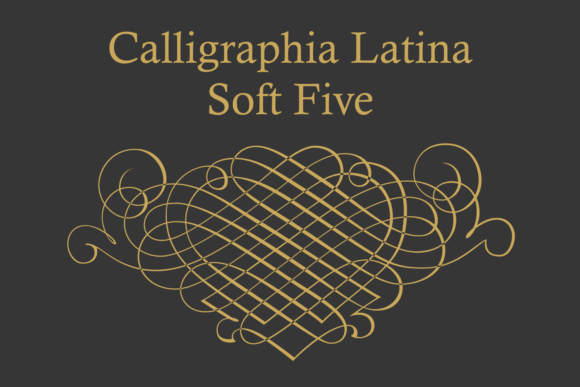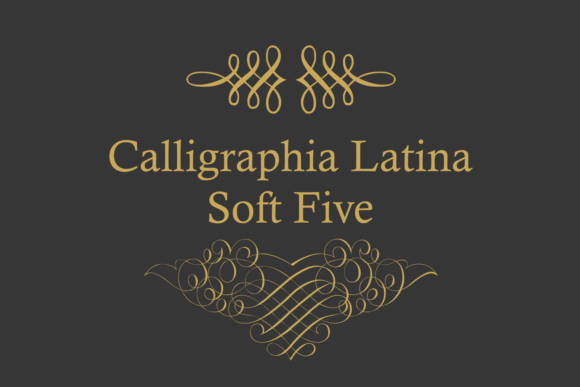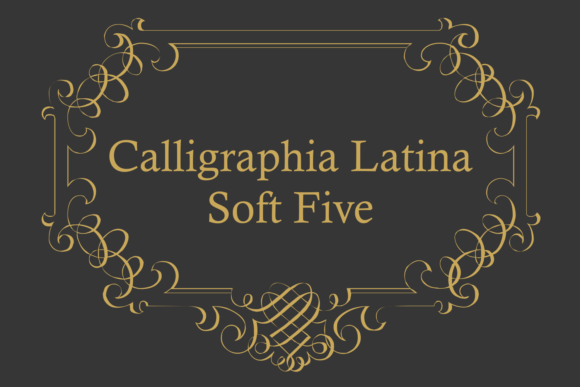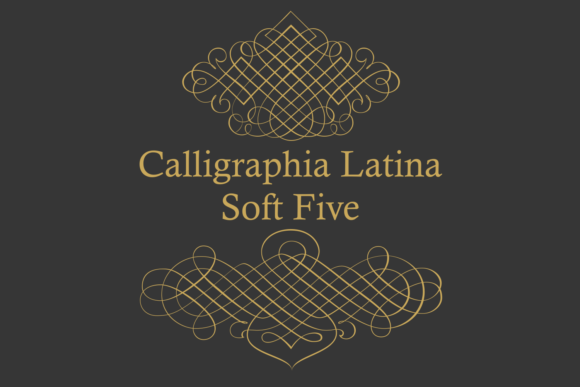
Calligraphia Latina Soft Five
Font Family by Intellecta Design
One of the most successful ornament fonts is Calligraphia Latina Soft Five. It is part of a trend that’s been quite popular lately: formal XVIII century calligraphy.